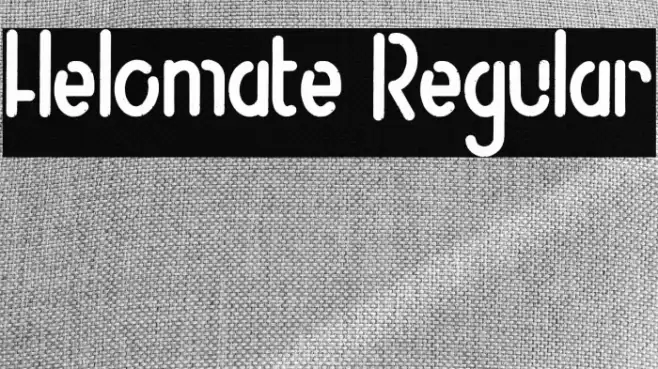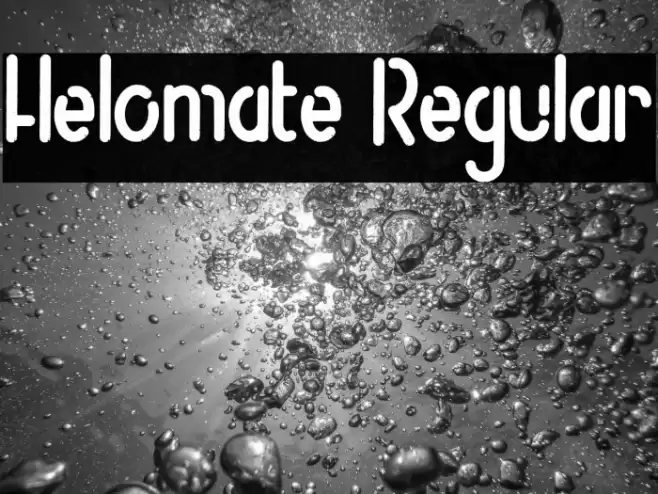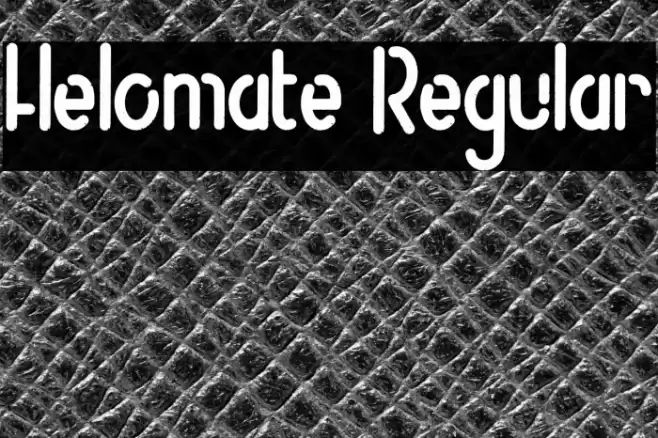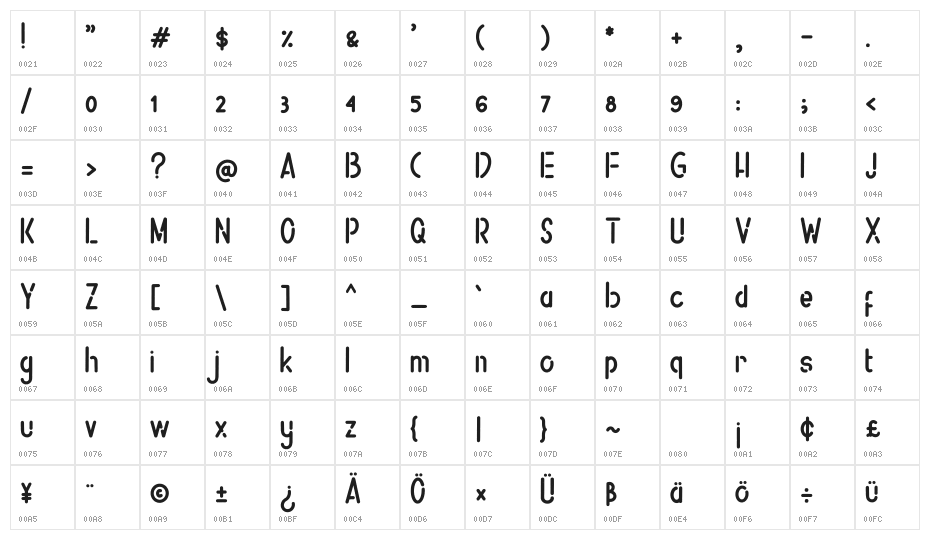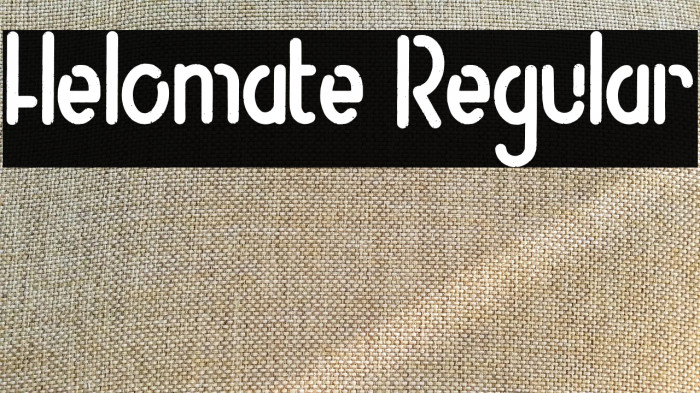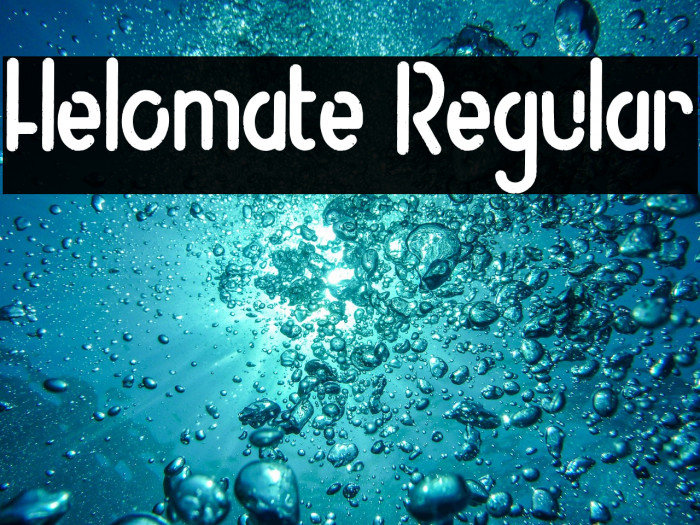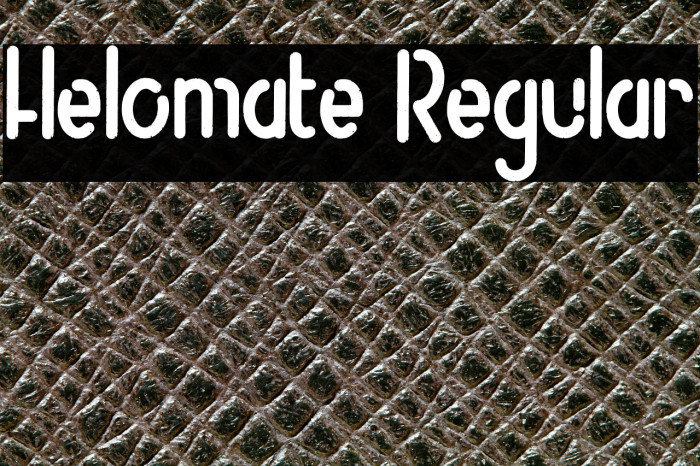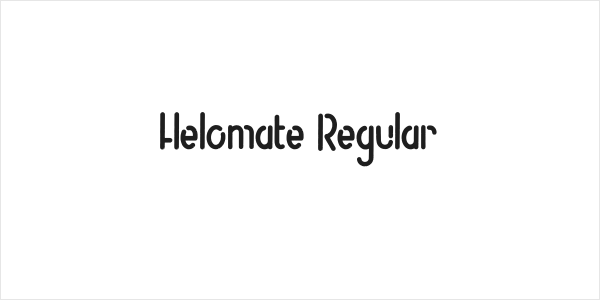
Helomate Regular Font
Helomate Regular Description
This font features a bold, playful style with rounded edges and a slightly condensed structure. The characters are uniformly thick, giving it a strong presence while maintaining a friendly and approachable appearance. The uppercase letters are tall and commanding, while the lowercase letters maintain a consistent height, enhancing readability. The numerals and special characters are designed to match the overall aesthetic, making them easily recognizable and visually appealing. This font's unique style makes it suitable for a variety of creative applications.
A bold, playful font with rounded edges and a slightly condensed structure from Regular fonts.
- Proposed Projects: Ideal for children's books, playful branding, posters, and creative digital content.
- Overall Style: Playful, Modern